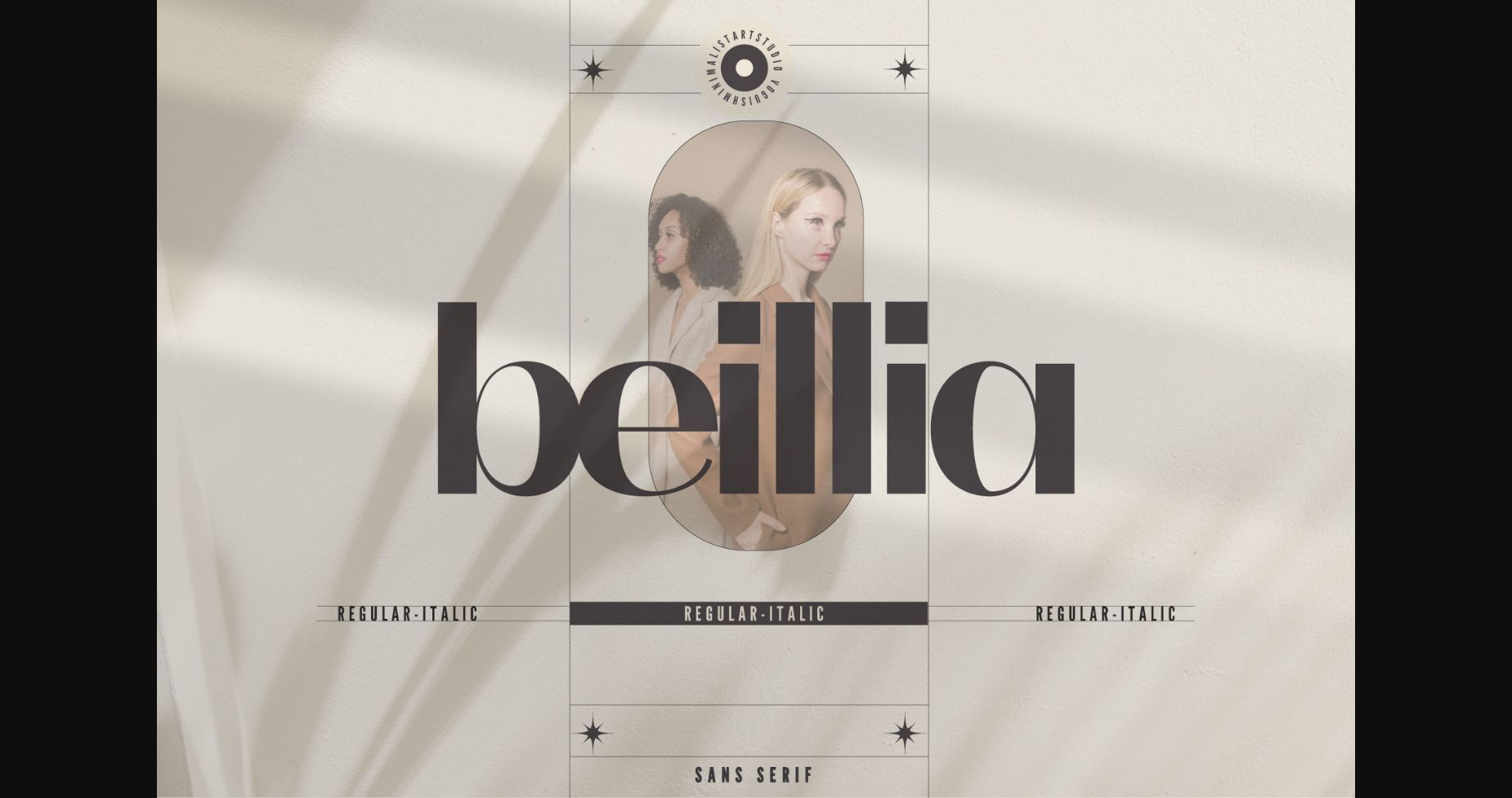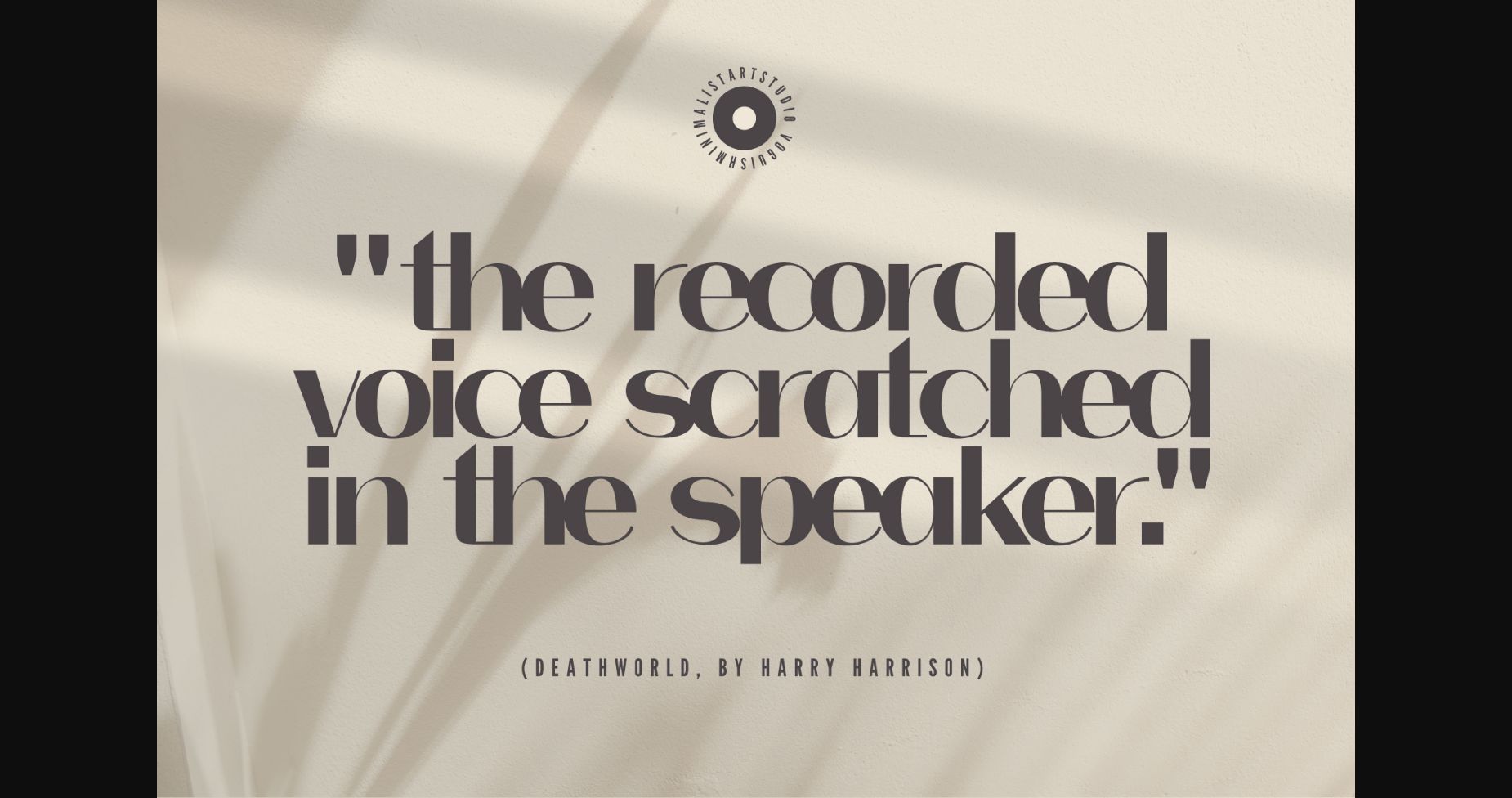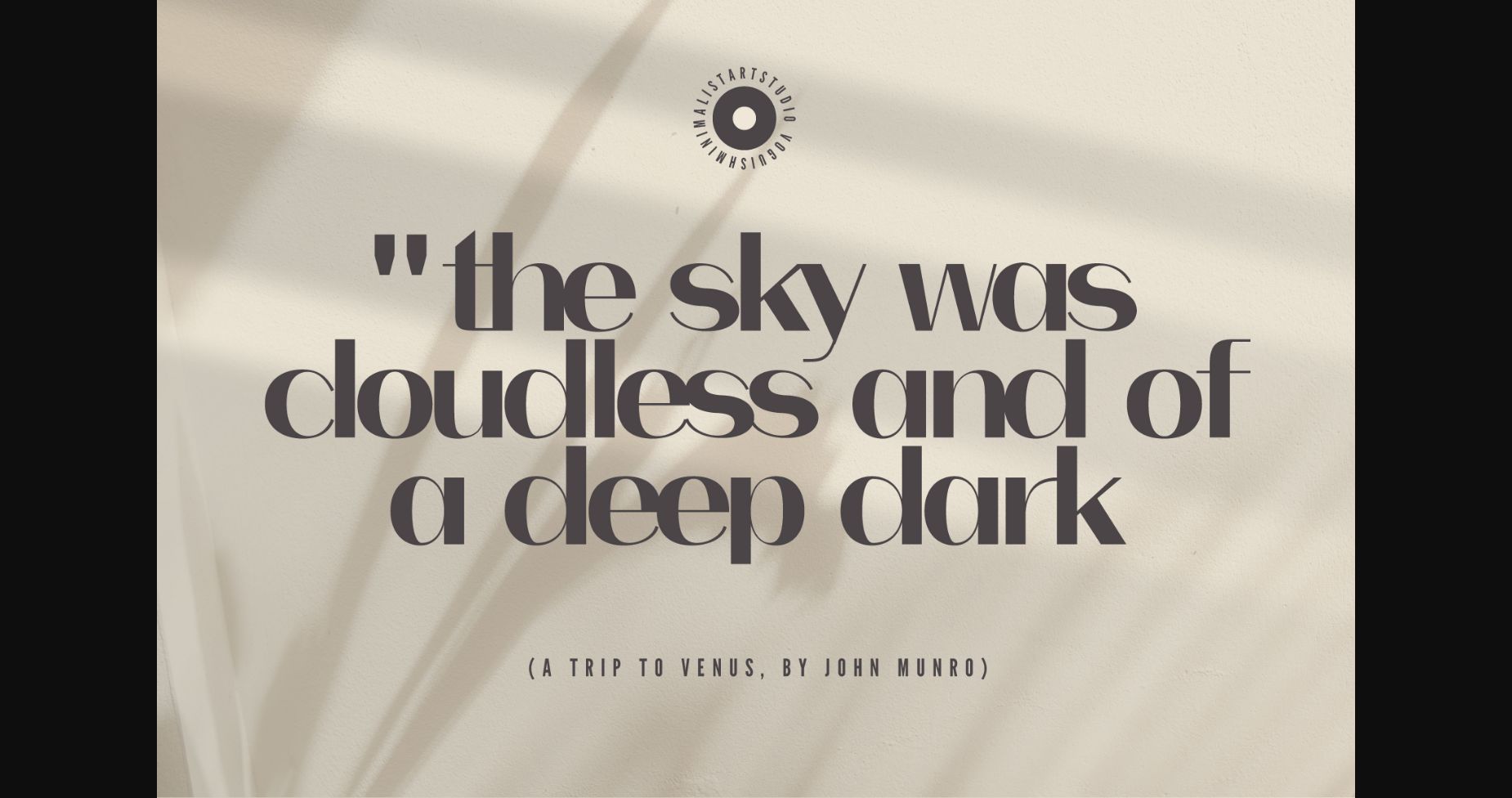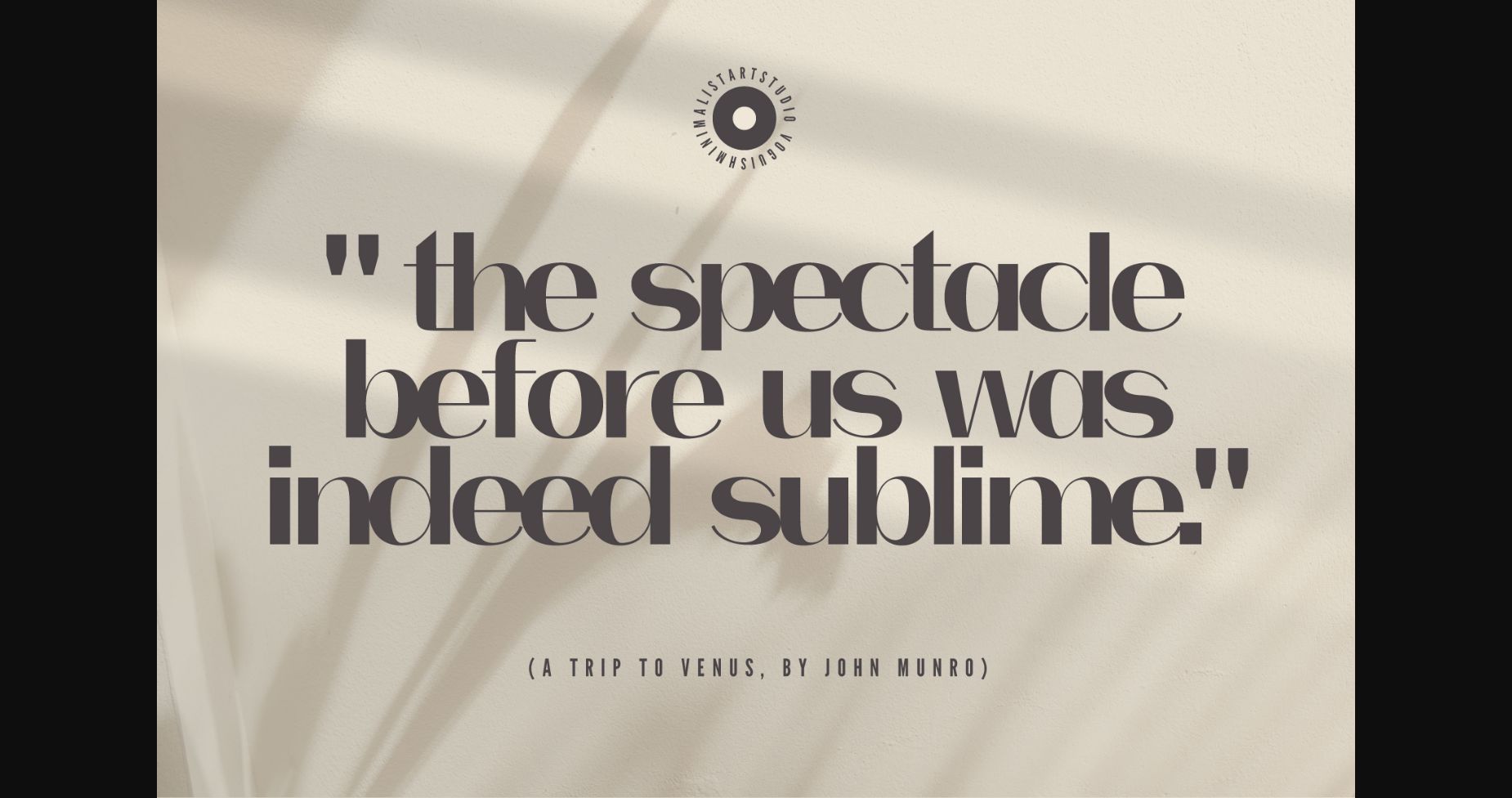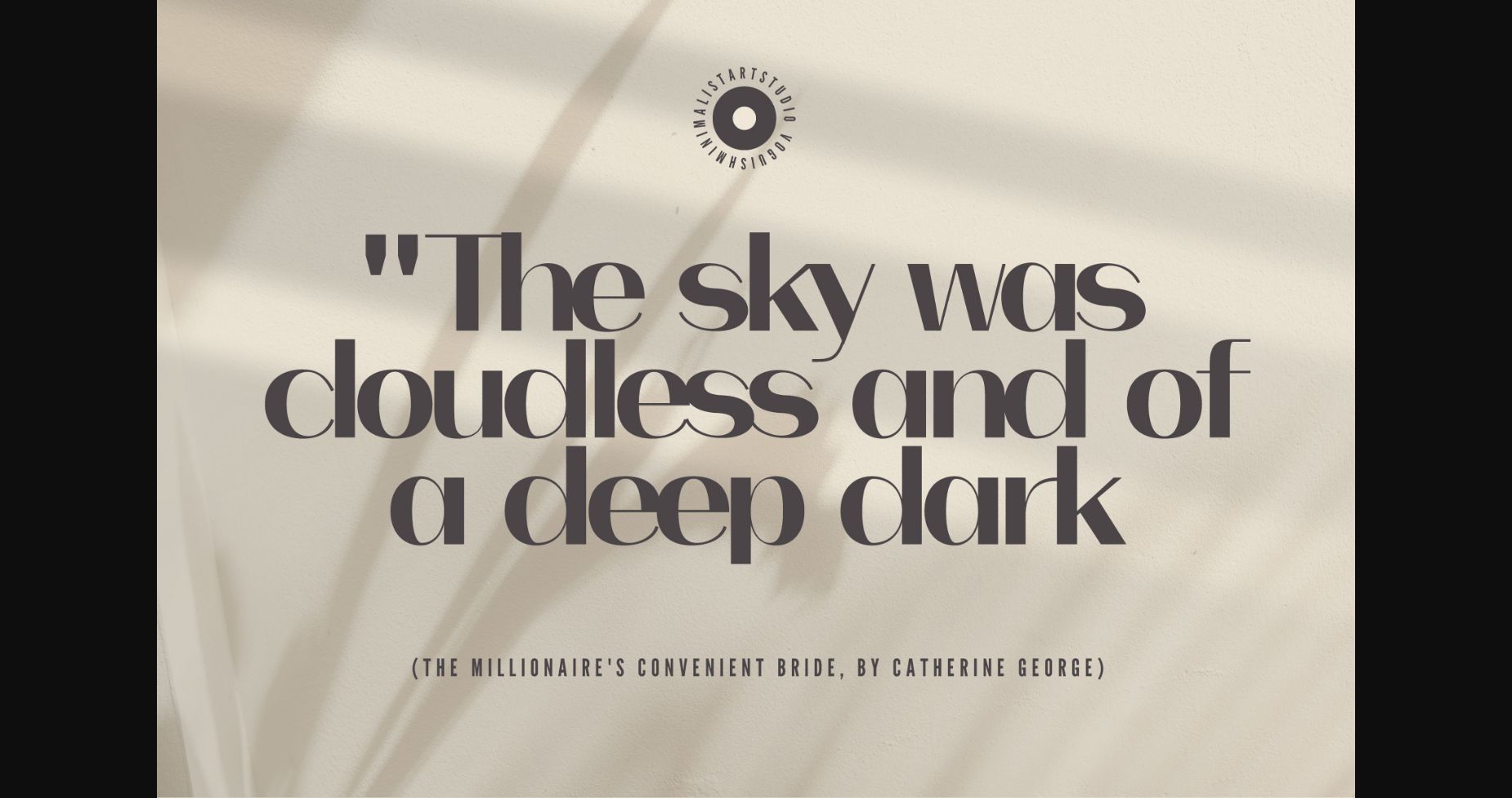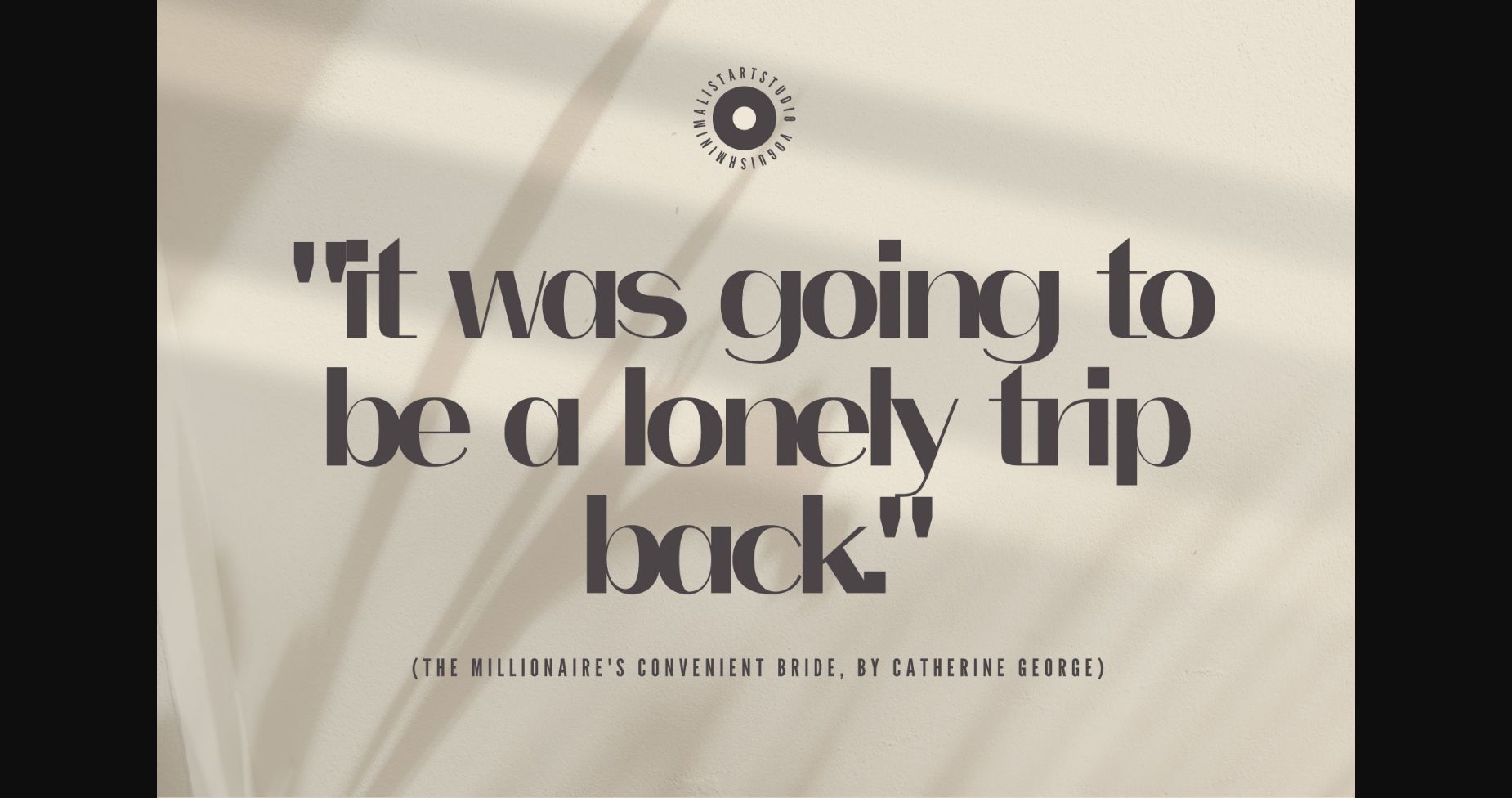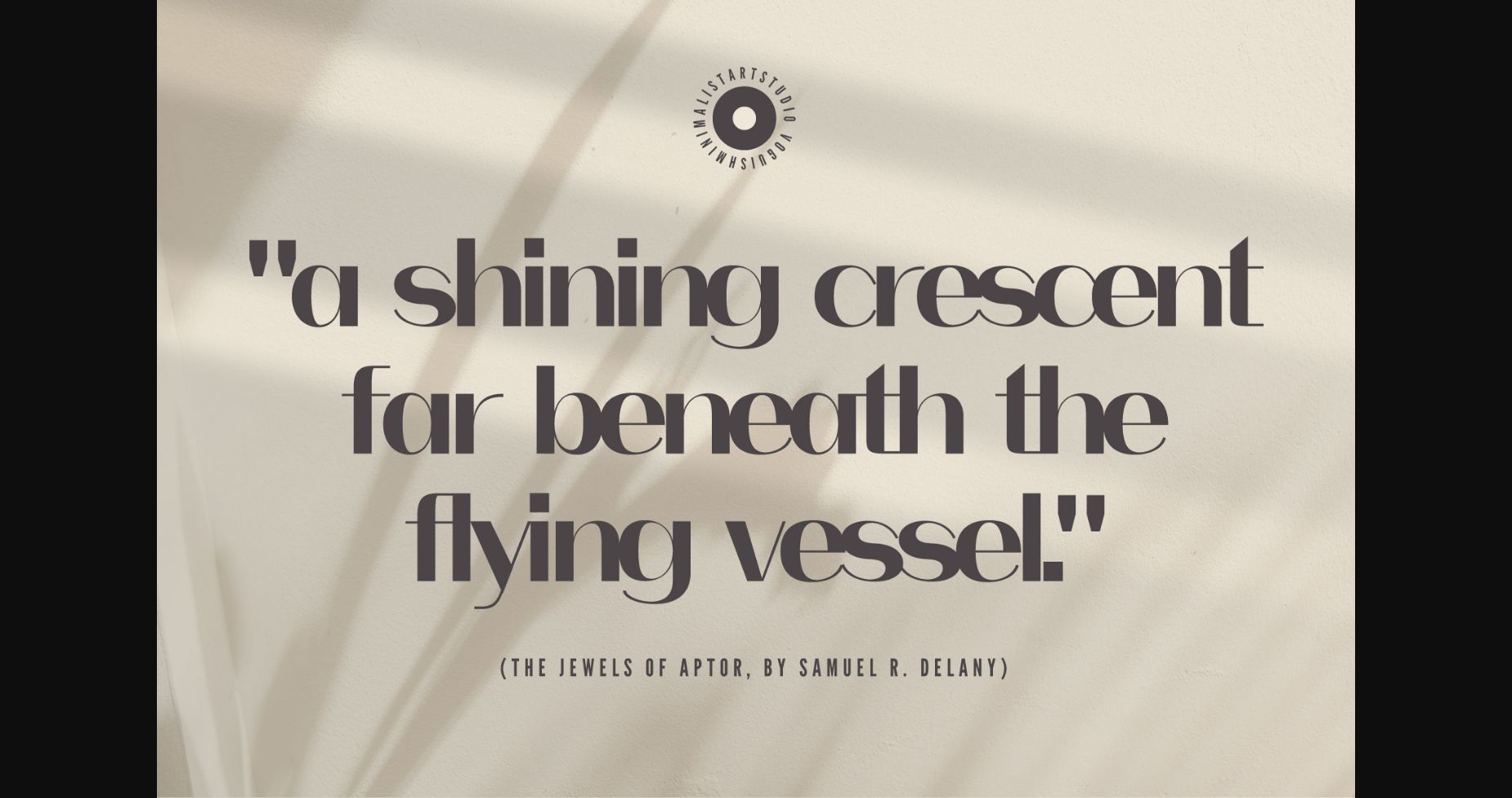
Beillia Font
About Beillia Font
Beillia, a sans serif font that exudes class, chic, and elegance in every letter. This typeface is the epitome of sophistication and style, making it the perfect choice for any design project that requires a touch of luxury. Whether you’re looking to create eye-catching headlines, captivating logos, or stunning advertising materials, Beillia will bring your vision to life in a bold and beautiful way.
Crafted with precision and attention to detail, Beillia boasts clean, crisp lines that are both simple and stylish. The font’s bold character pairs well with a variety of design elements, from modern graphics to vintage illustrations, and is ideal for projects ranging from fashion to finance.
Designed for readability and versatility, Beillia features multiple weights that are easy to use and pair together for a cohesive look.
The elegant curves and refined details of Beillia make it a standout choice for wedding invitations, high-end fashion campaigns, and premium brand logos. Whether you’re designing for print or digital, this typeface will elevate your designs and leave a lasting impression.
Overall, Beillia is a font that is sure to make your design projects stand out with its class, chic, and elegant style. Get started with this stylish and sophisticated typeface today and elevate your designs to the next level.